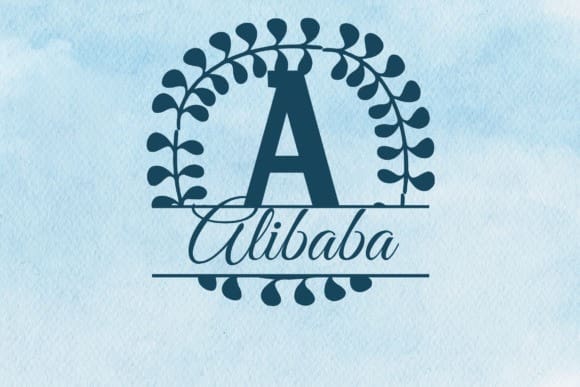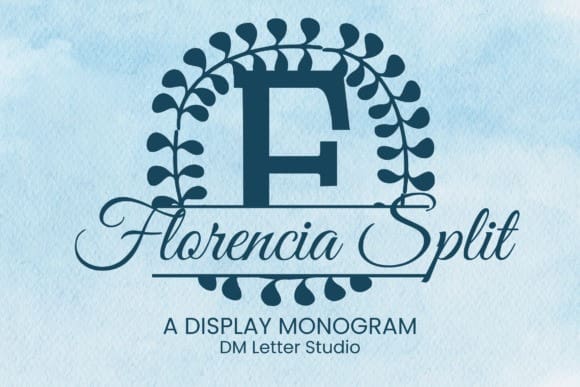
Florencia Split Monogram Font
Florencia Split Monogram Font is a graceful serif font crafted for easy, beautiful personalization. Each uppercase letter includes a clean horizontal split that gives you space to place names, dates, or short phrases. The letterforms keep Florencia’s signature botanical poise, so your custom text sits naturally inside a refined, high-end silhouette. Use it for wedding suites, boutique branding, keepsakes, vinyl decals, laser engraving, embroidery, and Cricut projects that call for a romantic yet readable split monogram.
This split edition preserves the classic proportions and soft, organic cues of the original Florencia Monogram, then adds practical room for type or decorative lines. Strokes are balanced, counters stay open, and terminals feel delicately sculpted. The result is a split monogram font that scales from small tags to statement signage without losing clarity. Pair it with a light script for warmth or a neutral sans for a clean, gallery look.
If you want a monogram that blends floral elegance with everyday usability, Florencia Split Monogram gives you flexibility, consistency, and a refined finish across print, cut, and engraved applications.